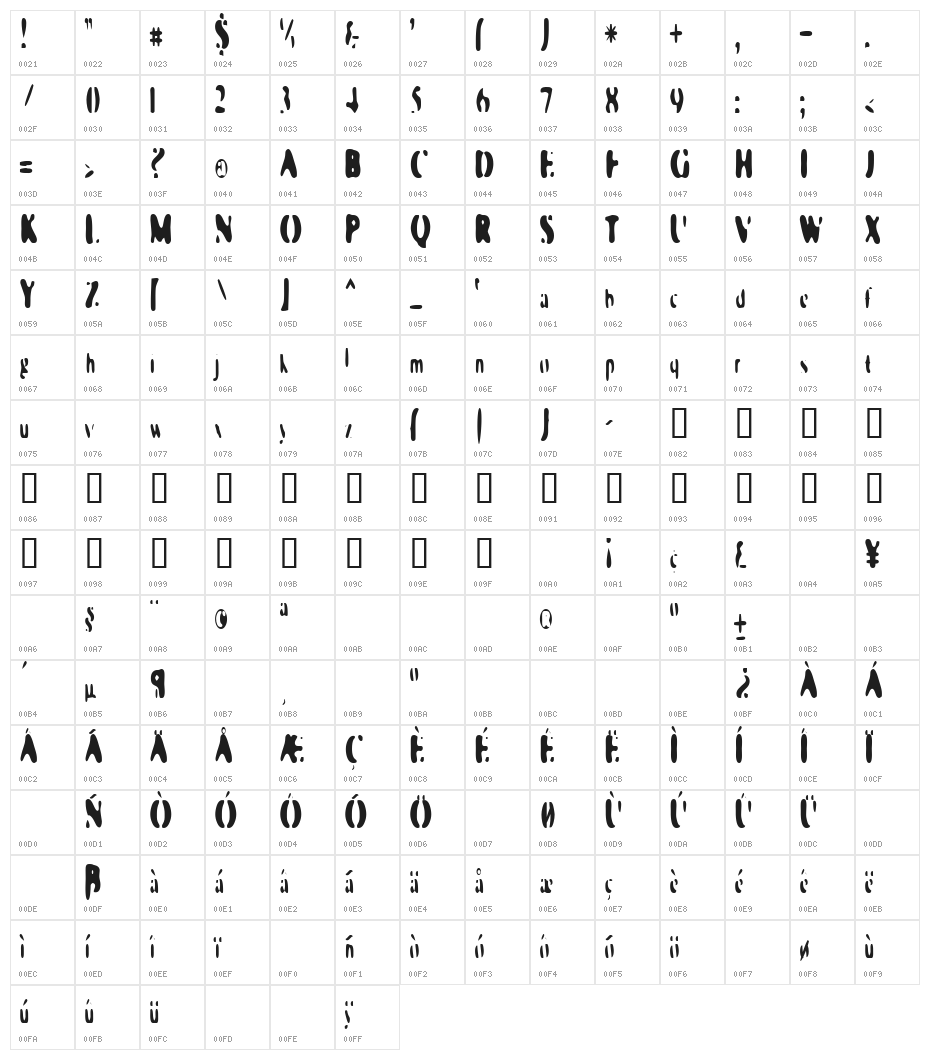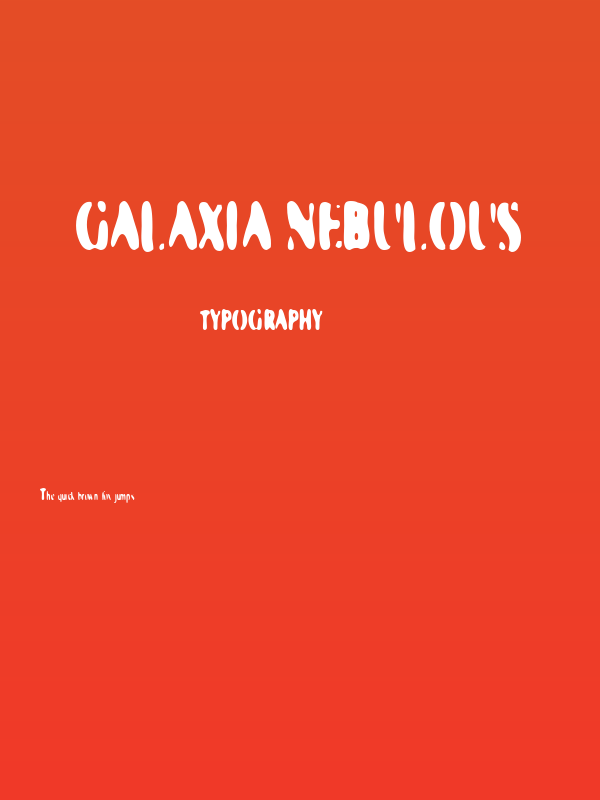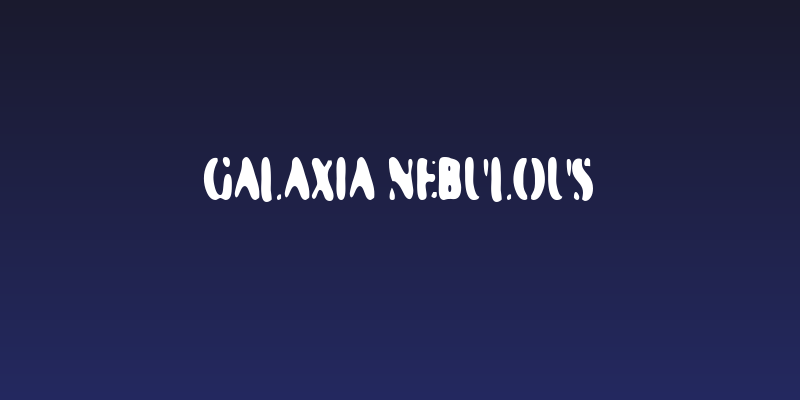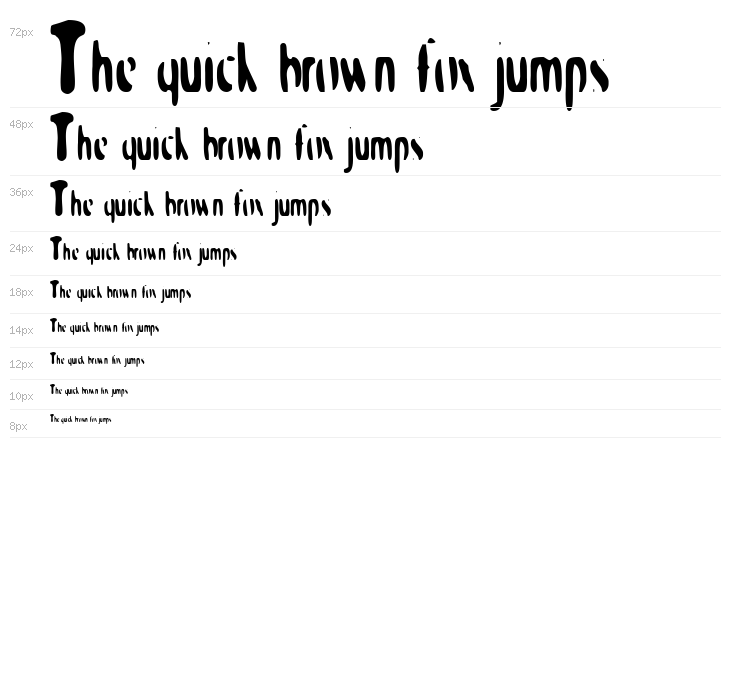
Galaxia Nebulous Font
Galaxia Nebulous Description
This font features a bold and playful design with a bubbly, organic appearance. The characters are rounded and have a whimsical, almost cartoon-like quality, making them stand out with a unique personality. The uppercase and lowercase letters maintain a consistent style, with exaggerated curves and a sense of movement. Numbers and special characters follow the same playful theme, ensuring a cohesive look across all text elements. The font's thick strokes and irregular shapes give it a dynamic and eye-catching presence, ideal for creative and informal projects.
Overall StylePlayful, Whimsical
Proposed ProjectsIdeal for children's books, playful branding, posters, and creative design projects.